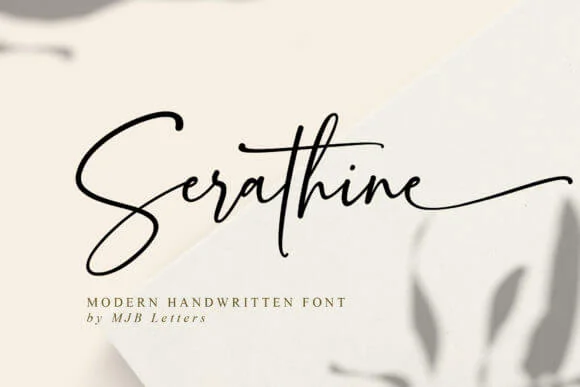
Calligraphy fonts are the best way to add a unique touch to your design projects. But there are so many types of calligraphy fonts to choose from. Scrolling through countless fonts can become overwhelming and time-consuming.
On top of finding one that fits the style of your design, you also need to figure out what fonts are best suited for the medium of your design, such as printing, cutting, and digital.
We created the ultimate guide to choosing a top-tier font. We also made a list of the best calligraphy fonts available right now. Continue reading to discover the perfect calligraphy font for your next project.
Best Calligraphy Fonts – Our Top Picks
- Best Overall – Little Love
- Most Popular – Randy Sofia
- Best for Cricut Pen – Dear Agatha
- Best for Tattoos – Chicano
- Best for Wedding Invitations – Ms. Claudy
- Best Modern – Modernline
- Best for Logos – Amalfi Coast
- Best Old English – Just Imagine
- Best Handwriting – Serathine
- Best Brush – Madina
- Best Copperplate – Fairyfiesta
- Best Spencerian – Ecatherina
Best Calligraphy Fonts
Drawing from our graphic design expertise, we’ve handpicked a collection of free and premium fonts. The fonts in this list cover a wide variety of design needs. Theyโll give any of your creative projects a beautiful handwritten touch.
Keep reading to find the perfect one for your next design.
Little Love
Best Calligraphy Font Overall
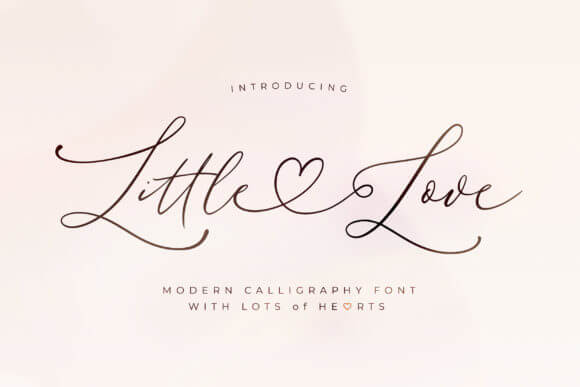
Little Love is a graceful modern calligraphy font with thin, smooth letters. It features elegant tails and connecting hearts that are perfect for adding a sweet touch to your designs.
This font is our top pick because itโs versatile. You can use it on a variety of projects, such as wedding invitations, wall art, or stationery. We also like this font because the alternates and swashes are easy to use.
Randy Sofia
Most Popular Calligraphy Font
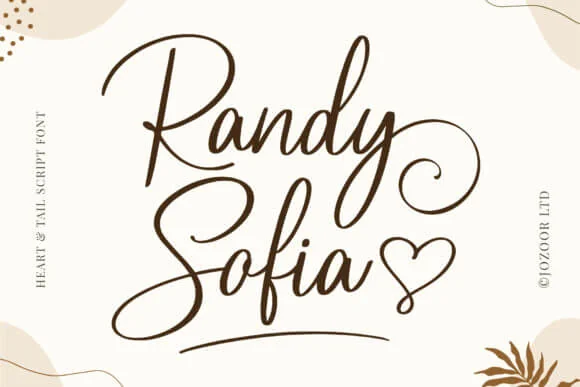
This lovely script is a favorite font for designers and crafters. Randy Sofia is easy to use and looks great on various types of projects.
Each of the letters has a distinguishable shape, giving the text a unique look. Moreover, the dancing baseline adds a playful charm to the designs.
The alternates, as well as the beginning and ending swashes, will transform your project into a work of art.
Dear Agatha
Best Font for Cricut Pen Calligraphy
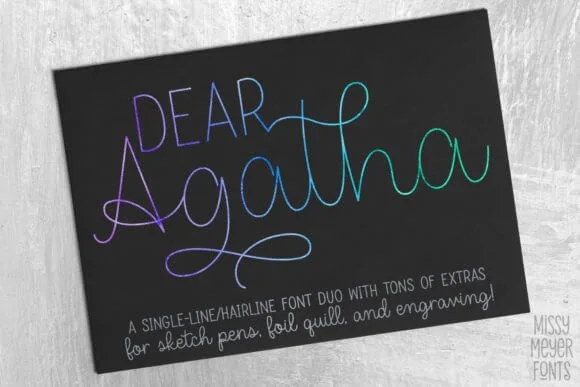
Dear Agatha is a font pairing featuring a cute cursive and fun sans serif font. The single-line lettering makes it easy for the machine to draw the text. Thereby ensuring youโll end up with a precise and polished design.
The font works seamlessly with Cricut tools such as sketch pens, engraving tools, and foil quills. Itโs the perfect choice for wedding invitations, addressing envelopes, and labels.
Chicano
Best Calligraphy Font for Tattoos
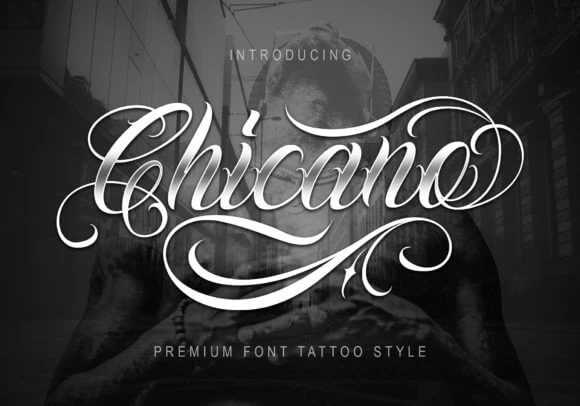
Chicano is our top recommendation for a script calligraphy tattoo font. The bold font is inspired by traditional Chicano-style tattoos.
The uppercase and lowercase letters connect as a cursive script. This gives the text an artful look. It also makes the text easy to read, whether the design is on paper or skin.
Whether you are designing a number, name, or a quote tattoo, Chicano is your go-to font.
Ms. Claudy
Best Calligraphy Font for Wedding Invitations
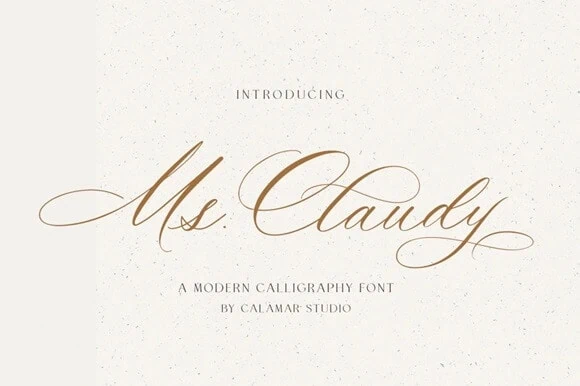
Ms. Claudy is a stunning wedding calligraphy font. The style of the letters replicates natural calligraphy handwriting. This gives the entire font an elegant and romantic look.
Because it has a mature appearance, this wedding font is best suited for weddings with a formal style. Use it to create invitations, save-the-dates, ceremony programs, and more.
Modernline
Best Modern Calligraphy Font
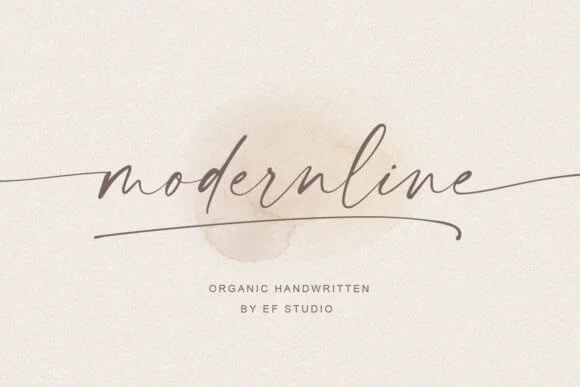
Modernline is the most popular choice for making stylish designs. The dancing baseline and smooth lines of the letters give the Modernline its authentic handwritten look.
You can use this modern script to create a variety of beautiful designs ranging from signs to logos and branding.
The shape of this font makes it readable on both plain and textured backgrounds. The gorgeous alternates and swashes look especially stunning on names, initials, and logos.
Amalfi Coast
Best Calligraphy Font for Logos
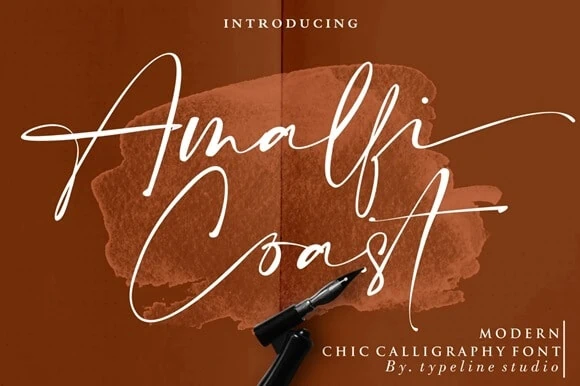
Amalfi Coast is a stylish script made for designing signature-style logos. Itโs perfect for any brand that is modern and chic.
Our favorite feature of this font is the alternate characters. The beginning and end swashes, along with the ligatures, will help you create a personalized logo.
Just Imagine
Best Old English Calligraphy Font
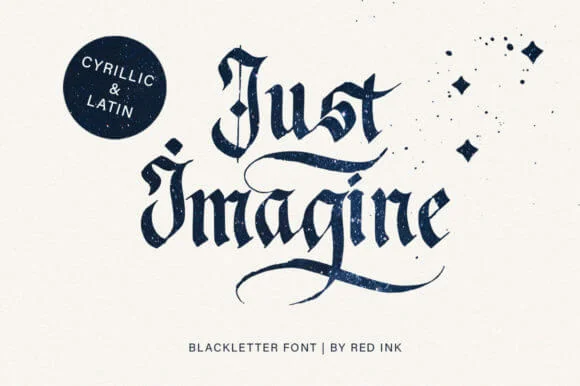
If you want a gothic calligraphy font, Just Imagine is the top choice for you.
The letters are drawn up in a bold black letter style. The capital letters feature elaborate alternates and swashes. Meanwhile, the lowercase letters are simpler and connect as cursive text.
What is the best font to use with Cricut calligraphy pens?
Our top font recommendation to use with Cricut calligraphy pens is Dear Agatha. This font was specifically designed for writing because itโs a single-line font. The simple structure of the letters without any outlines allows the machine to draw seamlessly.
Of course, you can use any font with Cricut calligraphy pens as long as they are a single-line font. Be sure to check the specifics before using a font with Cricut calligraphy pens so that you end up with a precise and polished design.